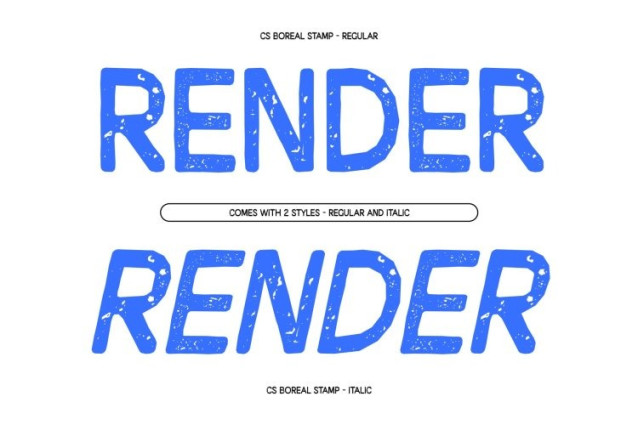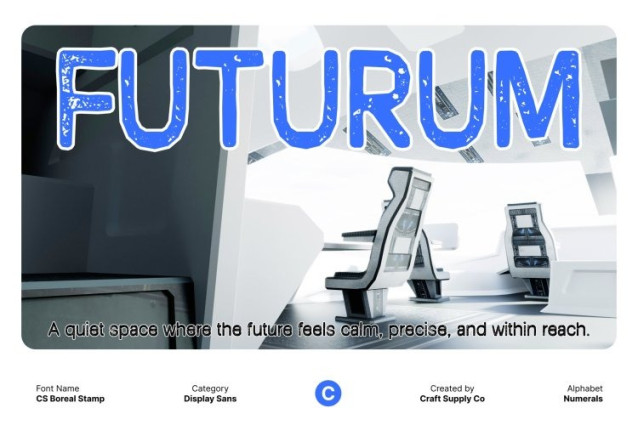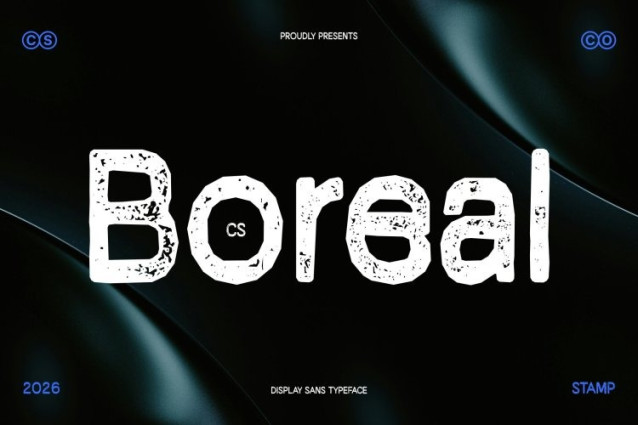
CS Boreal Stamp Font – This elevates the modern sans serif foundation with a subtle stamped texture that introduces warmth and tactile depth. Its clean construction and balanced proportions remain sharp and professional, while soft ink variations and lightly distressed edges add a handcrafted nuance. The result is a font that feels fresh, expressive, and visually engaging.
Quirky Details with Organic Texture
Built on a precise and modern framework, the quirky letterform details are enhanced by the stamped effect, giving them even more personality. The slight imperfections prevent the design from feeling too rigid or mechanical, creating a relaxed yet refined appearance. This combination of structure and texture makes the font adaptable across both creative and commercial contexts.
Fresh, Approachable, and Distinctive
This font maintains its confident, contemporary style while gaining an added layer of character. The textured finish softens its modern edge just enough to create an approachable and authentic impression perfect for brands seeking innovation without losing warmth.
Ideal for Branding and Expressive Visual Design
Well-suited for branding, posters, logos, packaging, and digital layouts, this font performs beautifully in headlines and display settings. Whether used in print or on screen, it delivers a clean yet character-rich presence that feels modern, stylish, and professionally distinctive.